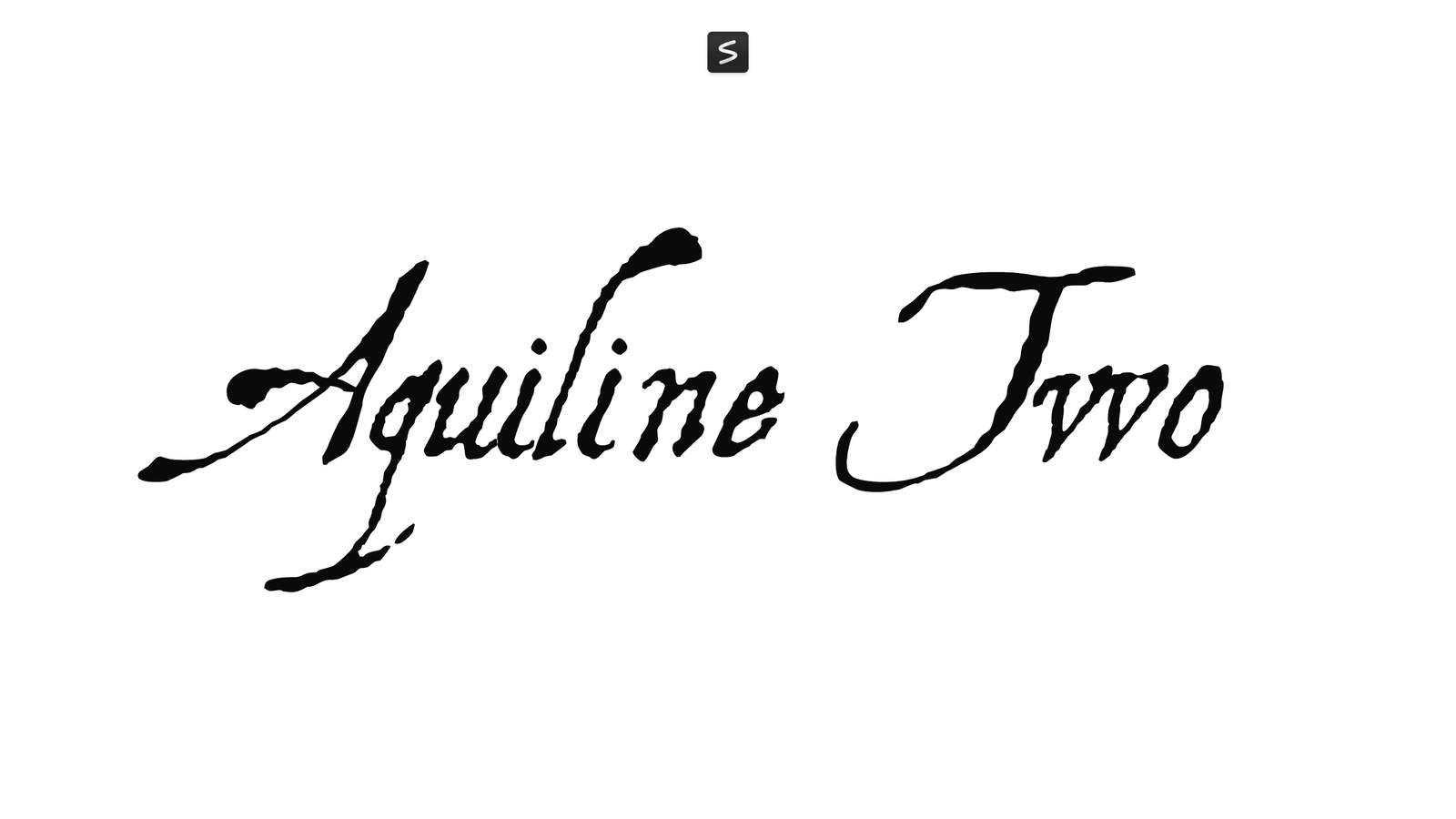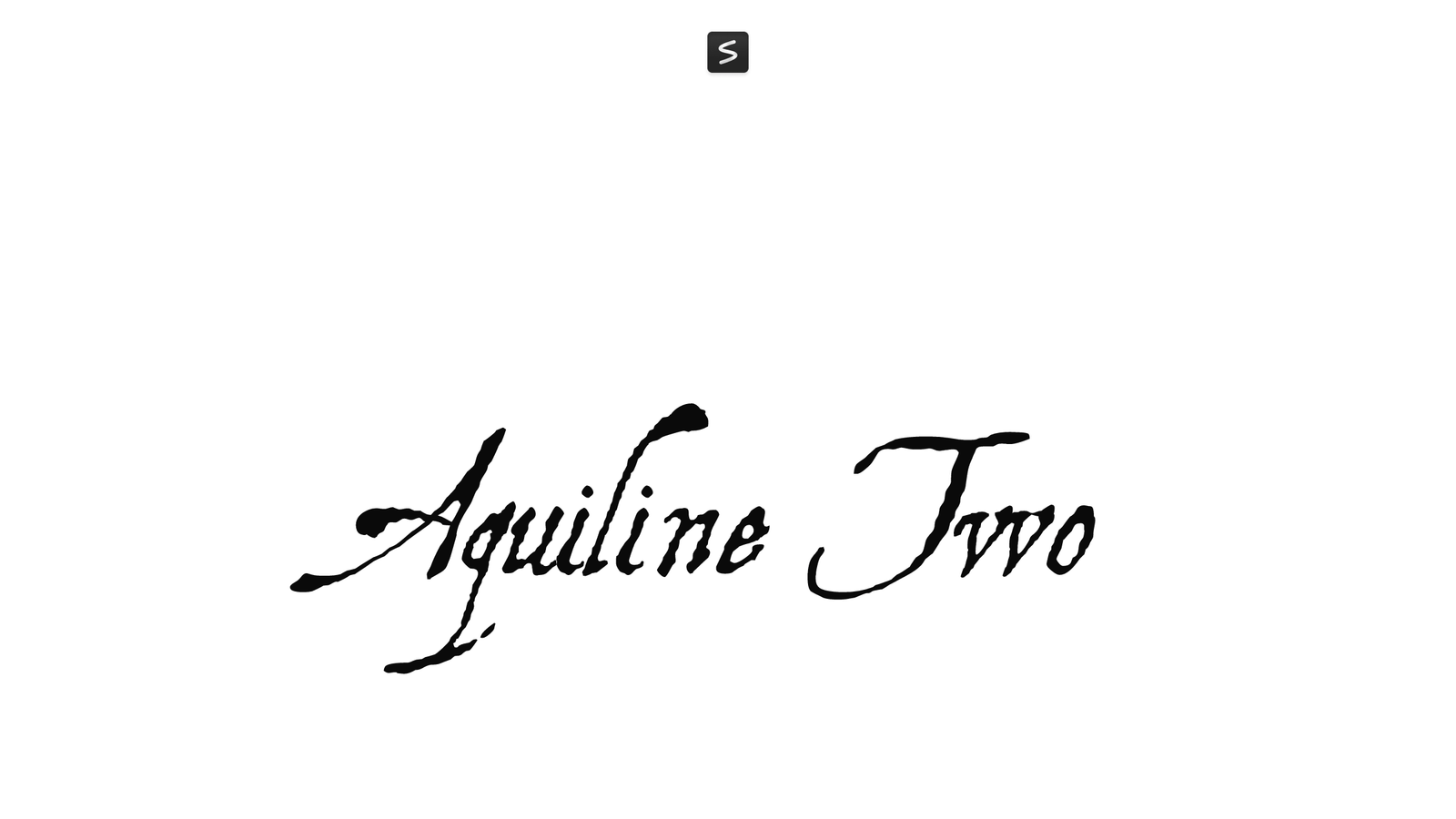
Aquiline Two is a calligraphic script font designed by Manfred Klein, rooted in classical penmanship traditions. Its letterforms feature pronounced thick-and-thin contrast, with sweeping strokes and carefully crafted ligatures that give each letter an air of formal refinement. The overall impression is one of educated, deliberate handwriting from an earlier era.
The font works best in contexts where formal sophistication matters: luxury branding, high-end invitations, wedding stationery, editorial mastheads, or book covers that demand an elegant aesthetic. Its generous letterforms and generous spacing make it readable even at smaller sizes, though it truly commands attention when set large. The ligatures add a layer of craftsmanship that suggests care and attention to detail.
Aquiline Two is a straightforward choice when a design needs to feel polished and classically grounded. It reads as mature and considered without resorting to ornamental excess.